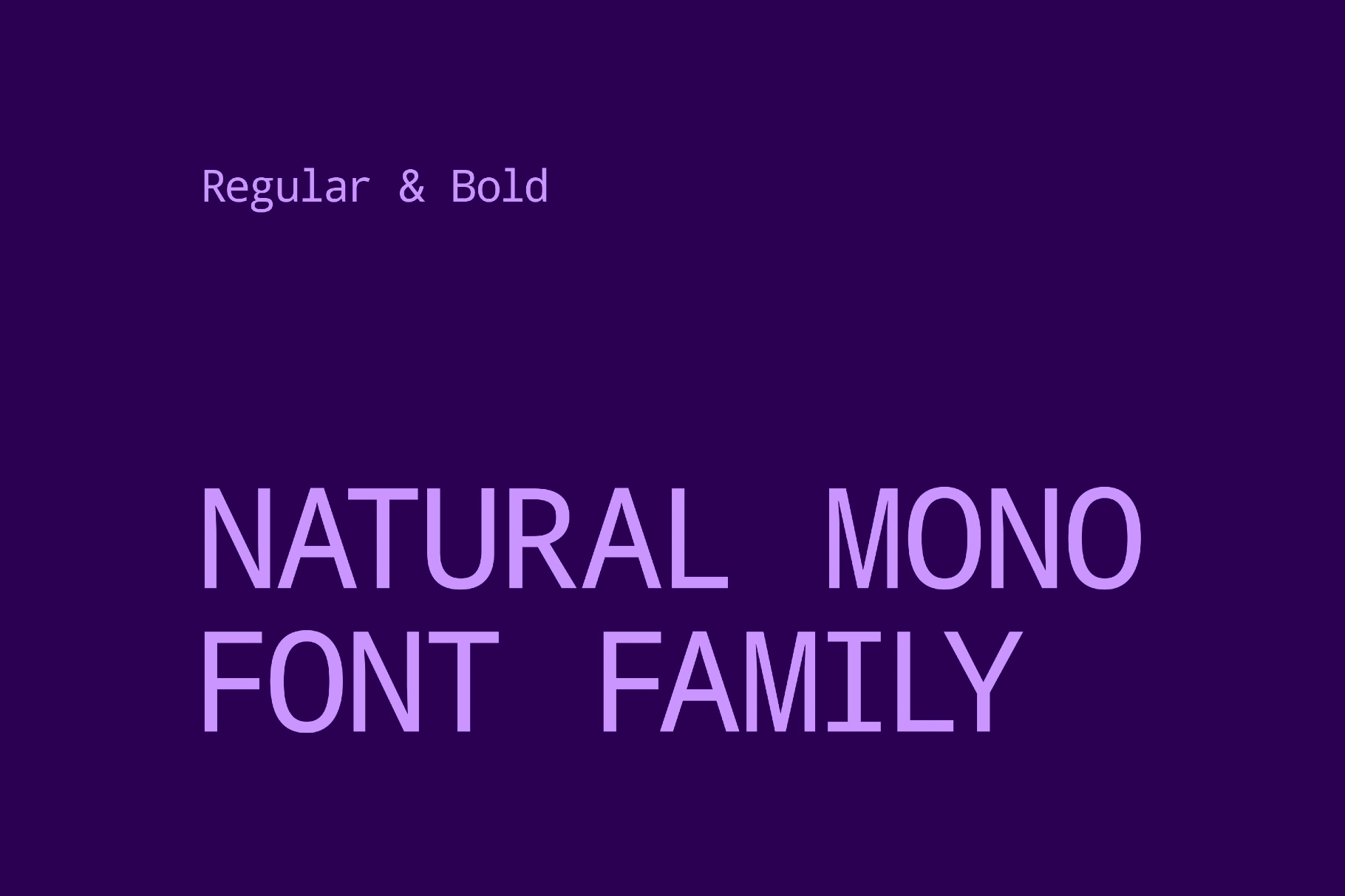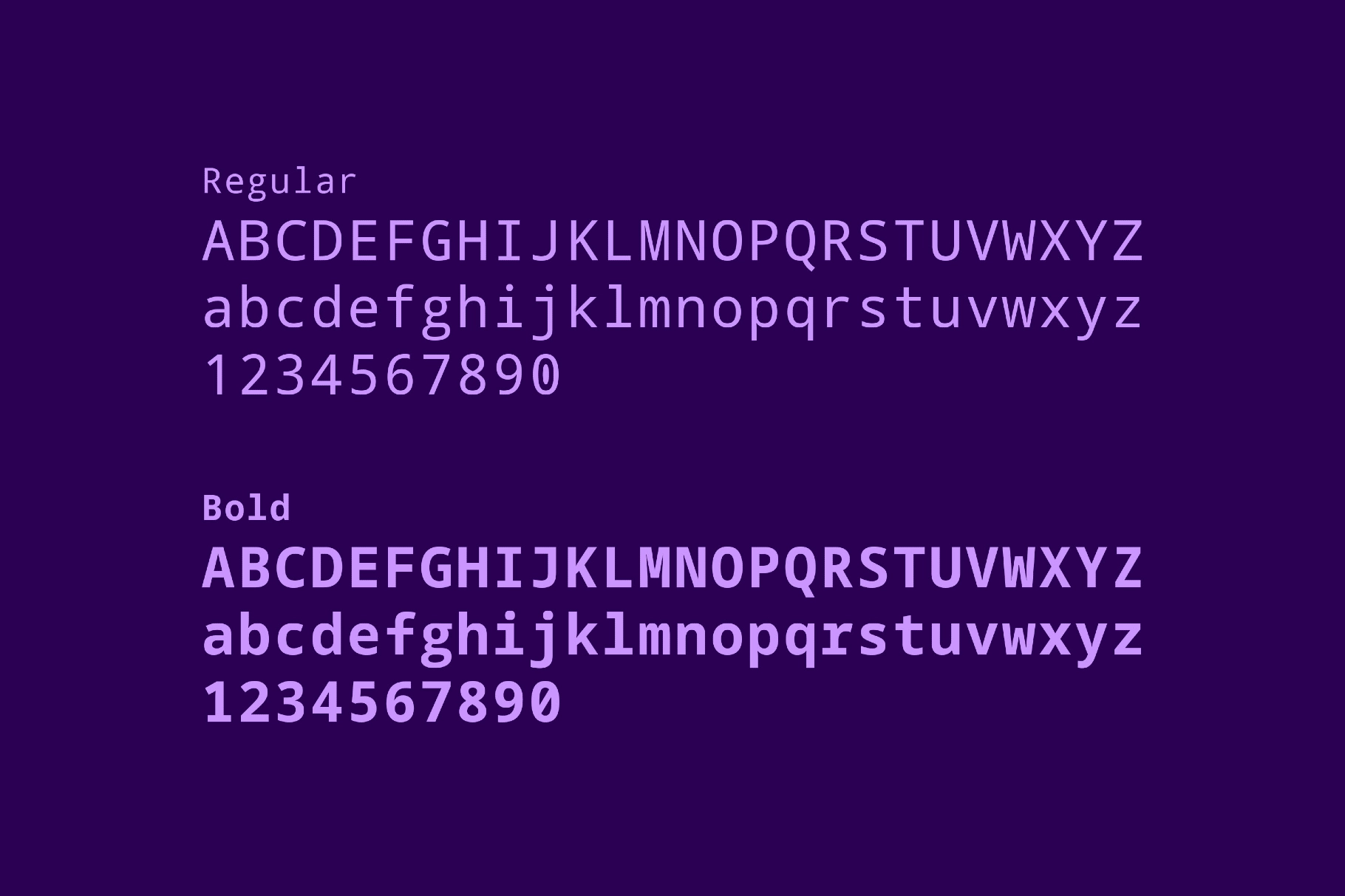
Natural Mono Font Family
The Natural Mono font family maintains a rigid rhythm and looks warmer than a strict terminal face — thanks to the soft corners and open counters.
Wide apertures, gentle curves, and squared counters are legible at tiny sizes. It makes the fonts suited for IDE themes, terminal skins, and dashboard UIs, or for presentations about data, dev tools, and product roadmaps. Natural Mono works well for infographics, subtitles in tech videos, identity systems for studios, SaaS products, posters for hackathons, conference materials, browser-based games, and chat interfaces.
Included: uppercase and lowercase letters, numbers, punctuation and extra symbols, international characters, and extended support for mathematical symbols and metrics, and broad multilingual support across Latin, Greek, and Cyrillic scripts. Two styles are included: Regular and Bold.